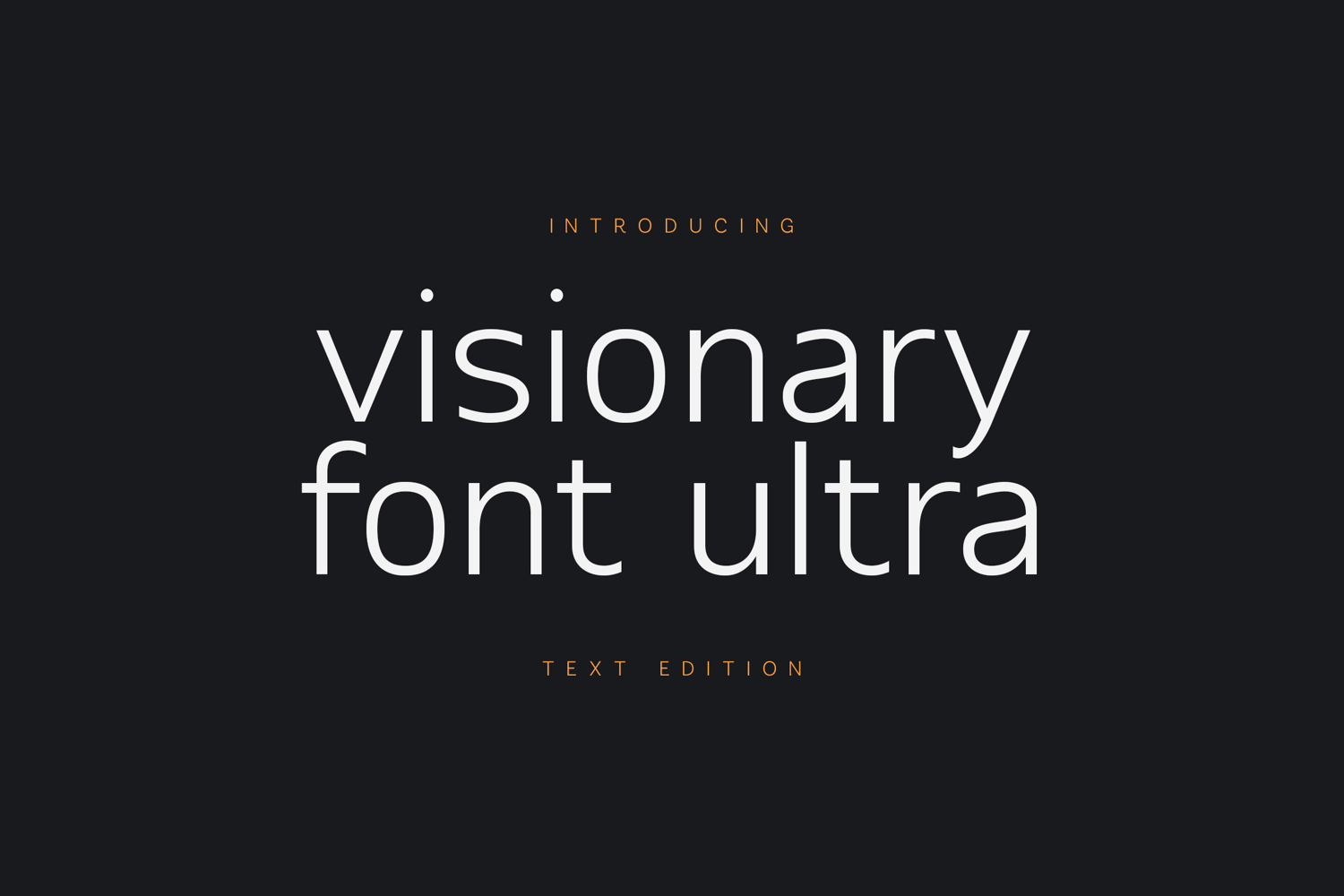
Visionary Font Ultra Text Edition Sans Serif
Introducing Visionary Font Ultra Text Edition , a modern geometric sans serif designed for clean branding, editorial design, user interfaces, contemporary logos, and sophisticated visual identities. Featuring balanced proportions, elegant curves, and exceptional readability, this typeface delivers a refined minimalist aesthetic that works beautifully across both print and digital projects.
Its versatile design makes it perfect for branding agencies, startups, technology companies, architecture studios, fashion labels, cosmetic brands, magazines, packaging, websites, social media graphics, presentations, posters, and premium marketing materials. Whether used in bold headlines or elegant body copy, Visionary Font Ultra Text Edition brings clarity, confidence, and timeless simplicity to every design.
With extensive multilingual support, uppercase and lowercase characters, numerals, punctuation, and international glyphs, it is built for professional designers creating work for a global audience.
Modern Geometric Sans Serif
Uppercase & Lowercase
Numbers & Punctuation
Multilingual Language Support
Clean Minimal Design
Excellent Readability
Perfect for Branding, Logos, Editorial, UI Design, Packaging & Websites
Create timeless, modern typography with a clean sans serif built for contemporary creative work.